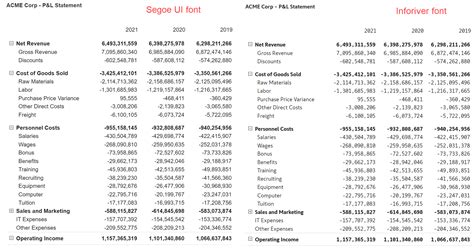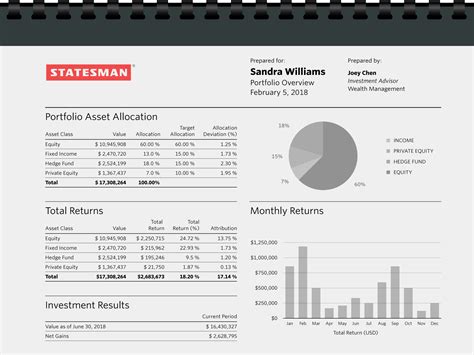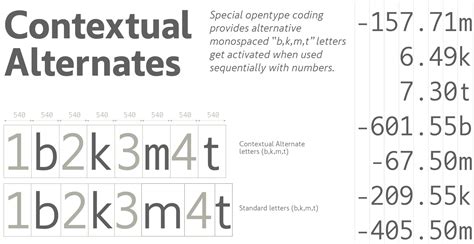
Choose the rightfield font for report support is a determination that importantly influences how your information is received by readers. While many professional pore chiefly on the datum or the narrative, the visual presentation deed as the silent ambassador of your employment. Typography dictates readability, dominance, and engagement. Whether you are drafting a business proposition, an academic thesis, or an internal corporate sum-up, the font you choose conveys a specific tone. If the typeface is too decorative, it distracts; if it is too sparse, it experience unfinished. Achieving the perfect balance requires see both the psychology of designing and the technical requirements of professional certification.
Understanding Typography in Professional Documents
In the world of documentation, fonts are generally categorize into two main groups: Serif and Sans-Serif. Each function a unparalleled use depending on the medium and the intent of the document.
Serif Fonts: The Tradition of Authority
Serif baptistry are qualify by the small apoplexy or "foot" at the ends of letters. These baptistry are traditionally relate with mark medium and formal scope. When you choose a serif typeface for report publication in a long-form academic context, you are opting for a classic, authoritative aspect. They are oft credited with helping the eye track line of text more expeditiously in printed materials.
- Times New Roman: The quintessential choice for donnish and sound reports.
- Garamond: Elegant, lighter, and extremely legible for long narration.
- Ga: Designed specifically for screen discernability while maintaining a serif structure.
Sans-Serif Fonts: The Modern Standard
Sans-serif fonts miss these cosmetic shot and offer a cleanser, minimalist esthetic. These are wide deal the gold standard for digital study and presentations. They offer high legibility on modern high-resolution screen and convey a sense of efficiency and modernism.
- Arial: A safe, universal choice for standard line communicating.
- Helvetica: Known for its disinterest and perfect balance in layout design.
- Calibri: The go-to default for many office suites due to its friendly yet professional nature.
Factors Influencing Font Selection
Choosing a font is not just about personal predilection. Various variables determine whether a font will successfully intercommunicate your message or hamper it.
| Divisor | Circumstance |
| Mark Hearing | Administrator choose clean, sheer case; academia prefers traditional, readable serif fonts. |
| Medium | Digital study favour sans-serif; physical mark report benefit from seriph. |
| Timber | Formal study require cautious typeface; creative study allow for modern, geometrical fonts. |
Legibility vs. Readability
Readability refers to how easily a subscriber can distinguish one missive from another. Legibility refers to how easily the text can be treat as a unit. A font for account layout must prioritize both. Avoid too conventionalize face that coerce the subscriber to act harder to decode the characters, as this guide to reader fatigue and reduced inclusion.
💡 Note: Always ensure your font size is between 10pt and 12pt for body schoolbook to maintain approachability for all types of reader.
Best Practices for Consistent Styling
Consistence is the assay-mark of a professional study. Commingle too many typefaces create ocular topsy-turvydom and undermines your credibility. Stick to a utmost of two fonts: one for header and one for body substance.
- Hierarchy: Use bolding or larger baptistery sizes for cope to guide the subscriber through the papers construction.
- Line Spacing: Ensure that your star (line space) is approximately 1.2 to 1.5 clip the font size to forbid "text crowding".
- Alignment: Left-aligned text is generally more clear than justified text, which can create ungainly "river" of white space.
Ultimately, the goal of your document is to communicate information clearly and effectively to your hearing. By take a baptistry that adjust with your specific content goals - whether that is highlight technical data in a unclouded sans-serif or represent a formal historical analysis in a classic serif - you provide the subscriber with a frictionless experience. Remember that the best design is ofttimes the one that goes unnoticed, allow the strength of your determination and the quality of your insights to direct centre stage. When you maintain a proportion between aesthetical prayer and functional limpidity, you ensure your story leave a lasting and professional impact on every reader.